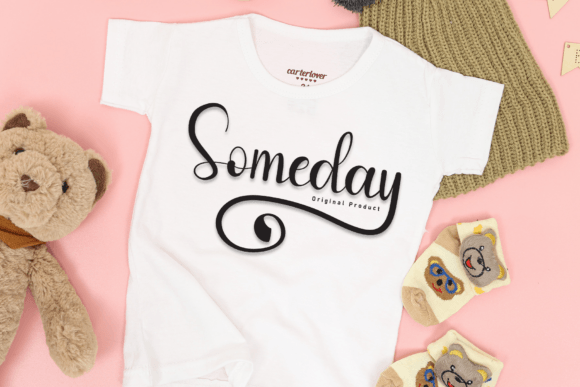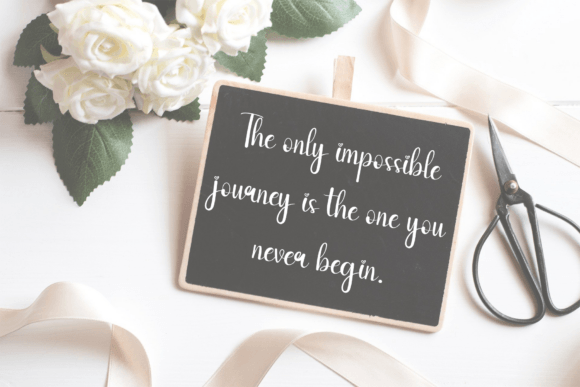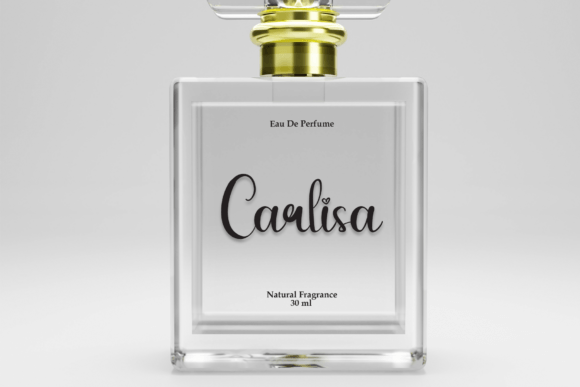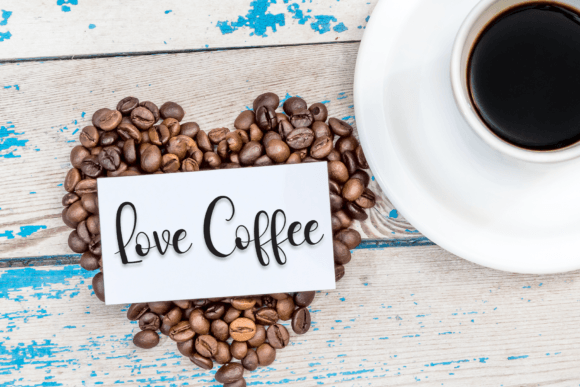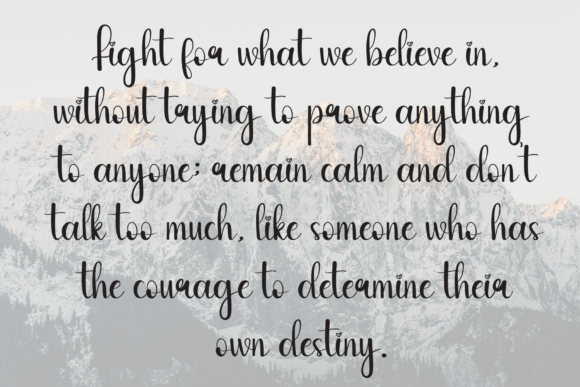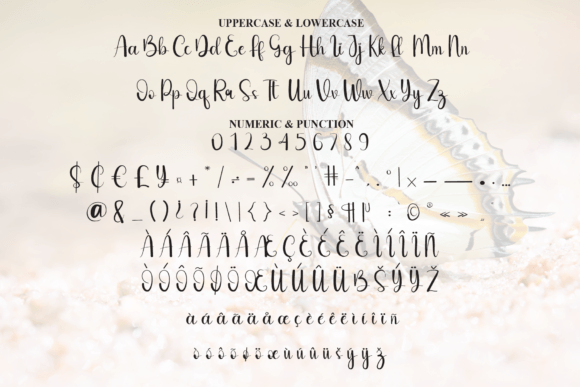
Introducing Butterfly Font: The Sweet and Amicable Handwritten Display Font
Are you looking for a font that can add a touch of charm and fun to your design projects? Look no further than Butterfly Font, an irresistibly sweet and amicable handwritten display font that is perfect for personalizing wedding invitations, crafting expressive greeting cards, and infusing any design project with a playful yet elegant touch.
A Font that Exudes Warmth and Welcoming Aura
Butterfly Font is a unique handwritten font that emits a warm, welcoming aura that simply transforms the mundane to extraordinary. Its friendly vibe makes it a delightful catalyst for appealing and engaging designs that leave an indelible mark. Whether you’re a designer, crafter, or DIY enthusiast, this font is sure to inspire your creativity and take your projects to the next level.
Perfect for Personalized Wedding Invitations and Greeting Cards
One of the standout features of Butterfly Font is its ability to add a personal touch to wedding invitations, greeting cards, and other special occasion designs. Its elegant yet playful script is sure to impress your loved ones and make your designs stand out from the crowd. Imagine being able to create beautiful, one-of-a-kind wedding invitations that reflect your personality and style – Butterfly Font makes it possible.
Infuse Your Designs with a Playful yet Elegant Touch
Butterfly Font is more than just a font – it’s a design solution that can elevate any project with its unique charm. Whether you’re working on a branding project, packaging design, or social media graphics, this font is sure to add a touch of whimsy and sophistication. Its versatility makes it perfect for a wide range of design applications, from digital to print.
Unleash Your Creativity with Butterfly Font
With Butterfly Font, the creative possibilities are endless. This font is designed to inspire your imagination and take your designs to new heights. Whether you’re a seasoned designer or a crafty DIY enthusiast, Butterfly Font is the perfect tool to help you express yourself and bring your ideas to life.
Key Features of Butterfly Font
- Sweet and Amicable Design: Butterfly Font features a unique handwritten design that is both sweet and amicable, making it perfect for a wide range of design applications.
- Playful yet Elegant: This font combines playfulness with elegance, making it perfect for designs that require a touch of whimsy and sophistication.
- Perfect for Personalized Designs: Butterfly Font is ideal for creating personalized wedding invitations, greeting cards, and other special occasion designs.
- Versatile: This font can be used for a wide range of design applications, from digital to print.
In conclusion, Butterfly Font is a unique and versatile handwritten display font that is perfect for designers, crafters, and DIY enthusiasts. Its sweet and amicable design, playful yet elegant style, and warm, welcoming aura make it a delightful addition to any design project. Whether you’re creating personalized wedding invitations, crafting expressive greeting cards, or infusing any design project with a playful yet elegant touch, Butterfly Font is the perfect choice.